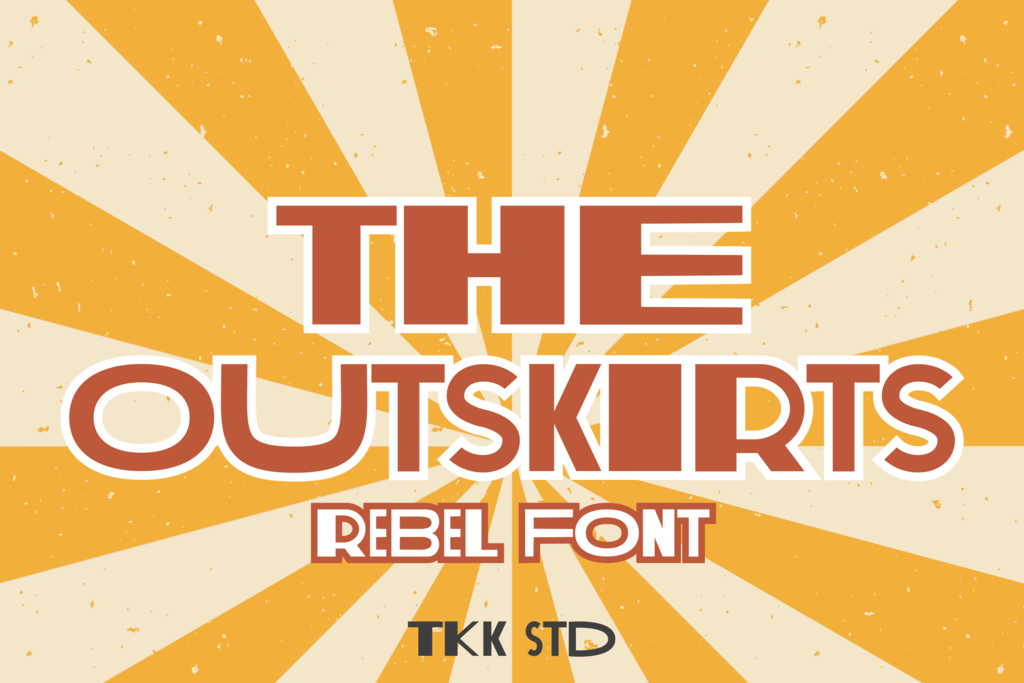
The Outskirts vintage font it’s here. The variable wide of the letter on the uppercase will give you a blast of rebel feel in it.
Suit perfectly for books, poster, movie title, fast food menu, magazine, youtube covers, youtube thumbnails, social media page covers and so on…